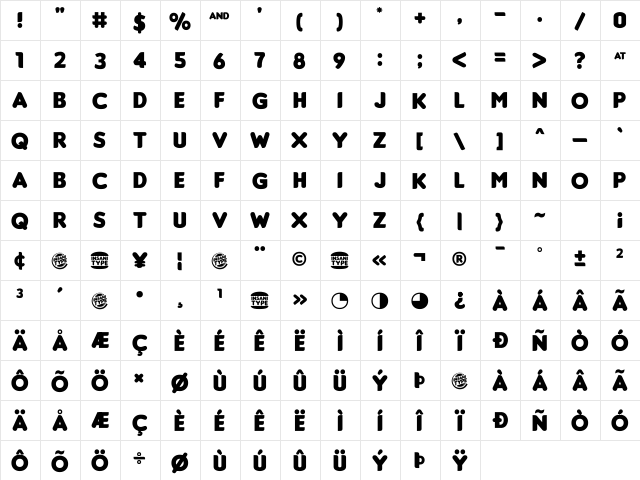
Insaniburger with Cheese Regular
Design Context for Insaniburger with Cheese Typeface
Insaniburger with Cheese offers clean, dependable letterforms without strong stylistic allegiance, making it a practical choice for designers who need flexibility.